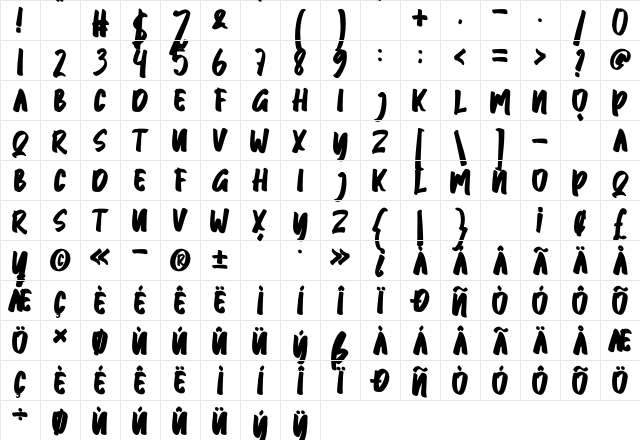
Nezires Regular Free Font
Nezires Regular
Designer: Skiiller studio - M irfan mahmudin
Design Context for Nezires
Nezires is a composed and adaptable typeface that performs quietly and consistently across a wide range of design contexts.